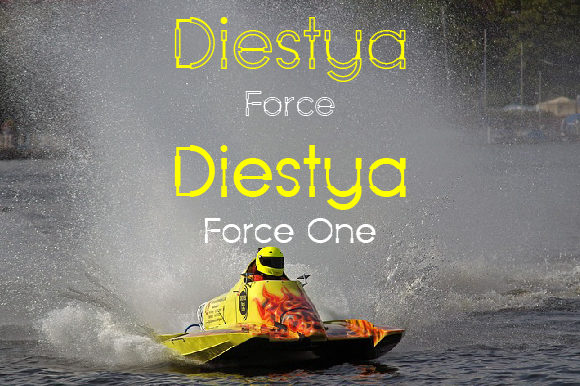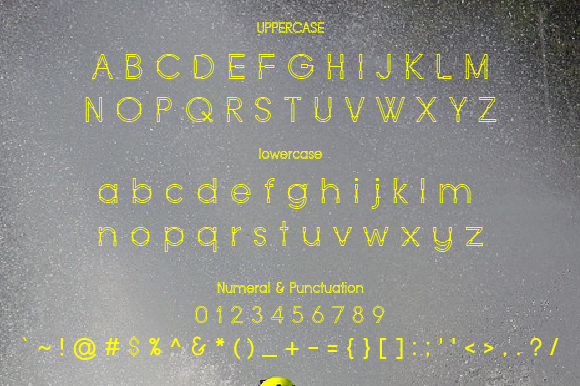
Unleash Your Creativity with Force Font: A Fresh and Unique Typeface
In the world of design, typography plays a crucial role in making a lasting impression. A well-crafted font can elevate your design, convey your message, and leave a lasting impact on your audience. Introducing Force Font, a fresh and unique typeface that’s about to revolutionize your design game. With its two included styles, Force Font is the perfect addition to your design arsenal, allowing you to add a striking touch to your creations.
What is Force Font?
Force Font is a modern, sans-serif typeface that’s specifically designed to make a statement. Its clean lines, precise curves, and bold structure make it perfect for a wide range of design applications, from name cards and posters to logos, magazines, covers, banners, and large-scale artwork. Whether you’re a designer, craftsperson, or DIY enthusiast, Force Font is an excellent choice for anyone looking to add a touch of sophistication and elegance to their work.
Key Features of Force Font
- Two Included Styles: Force Font comes with two distinct styles, allowing you to experiment with different looks and feels. Whether you prefer a bold, eye-catching font or a more subtle, refined look, Force Font has got you covered.
- Fresh and Unique: Force Font boasts a fresh and unique design that’s sure to set you apart from the crowd. Its modern aesthetic and precision-crafted curves make it perfect for designers and craftspersons looking for a distinctive look.
- Highly Versatile: Force Font is incredibly versatile, making it suitable for a wide range of design applications. Use it for name cards, posters, logos, magazines, covers, banners, and large-scale artwork.
- Easy to Read: Despite its bold structure, Force Font is remarkably easy to read, making it perfect for body text, headings, and titles.
Design Applications for Force Font
Force Font is an incredibly versatile typeface that can be used in a variety of design applications. Here are some ideas to get you started:
- Name Cards: Make a lasting impression with professionally designed name cards that feature Force Font.
- Posters: Create eye-catching posters that grab attention with Force Font’s bold, striking design.
- Logos: Use Force Font to create a unique and memorable logo that sets your brand apart.
- Magazines and Covers: Add a touch of sophistication to your magazine or publication with Force Font’s elegant design.
- Banners: Create stunning banners that showcase your message with Force Font’s bold, eye-catching design.
- Large-Scale Artwork: Use Force Font to create stunning large-scale artwork that’s sure to turn heads.
Tips for Using Force Font
To get the most out of Force Font, here are some tips to keep in mind:
- Experiment with Different Styles: Try out both styles included with Force Font to see which one works best for your design.
- Play with Font Sizes: Force Font looks great in a variety of font sizes, so don’t be afraid to experiment with different sizes to achieve the desired effect.
- Pair with Other Fonts: Combine Force Font with other fonts to create a unique and visually appealing design.
- Use for Headings and Titles: Use Force Font for headings and titles to add a touch of elegance and sophistication to your design.
Force Font is a game-changing typeface that’s sure to revolutionize your design game. With its fresh and unique design, two included styles, and high versatility, Force Font is the perfect addition to your design arsenal. Whether you’re a designer, craftsperson, or DIY enthusiast, Force Font is an excellent choice for anyone looking to add a touch of sophistication and elegance to their work. So why wait? Unleash your creativity with Force Font today and take your design to the next level!